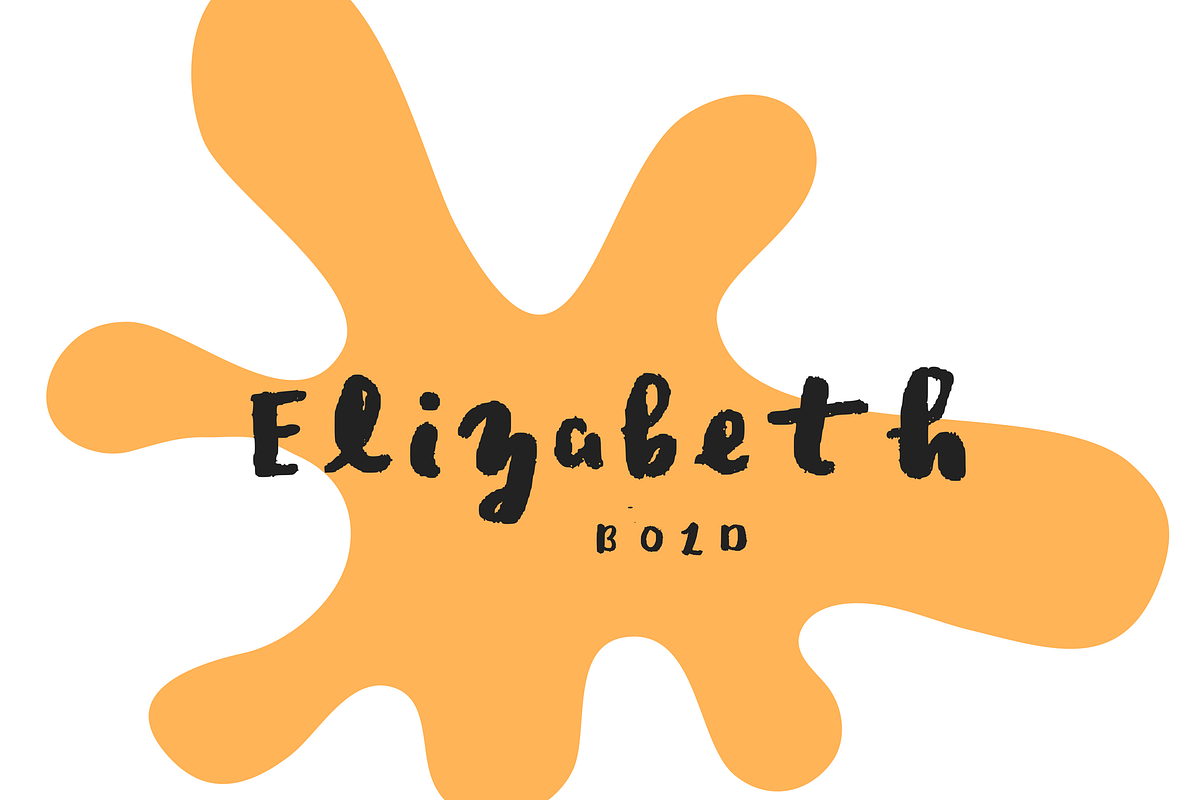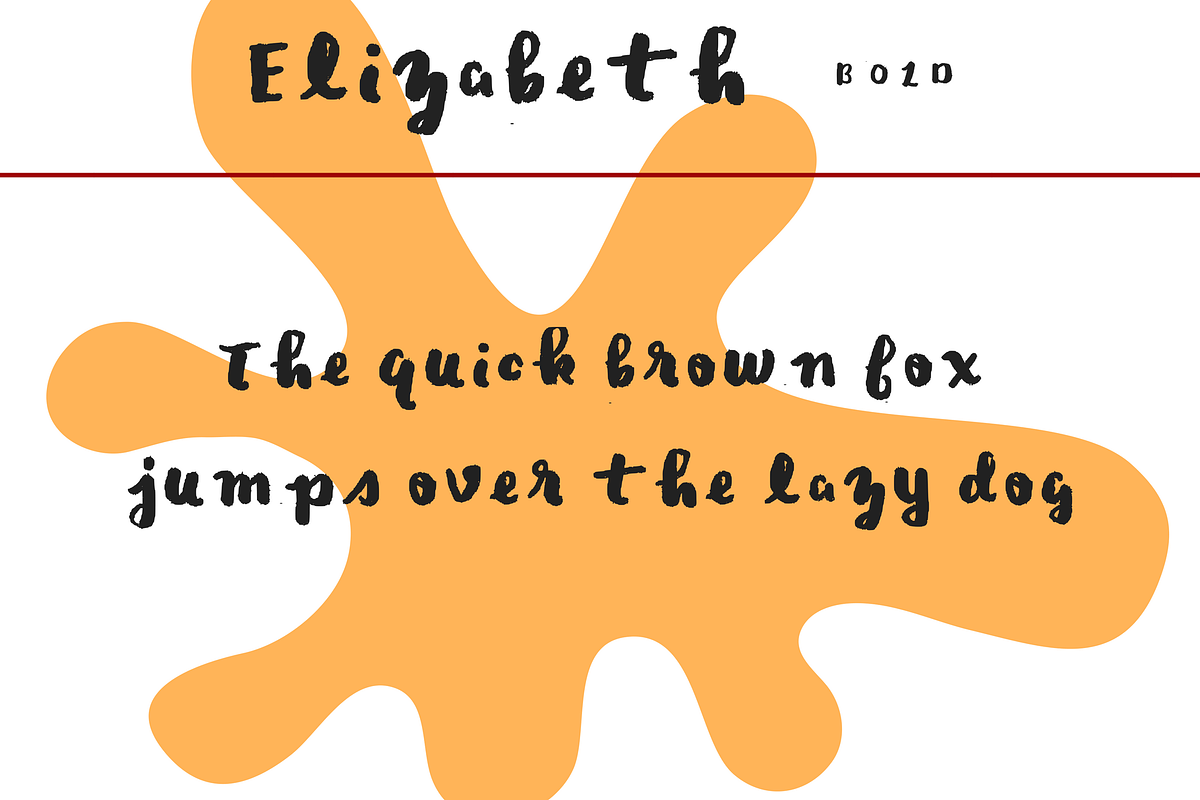
Elizabeth Bold Font
This font is a fun bold mix between a printed font and a cursive font perfect for promoting, marketing, and advertizement.
Why Elizabeth Bold Font is worth a look
Elizabeth Bold Font by ElizabethJournals fits naturally into Branding, posters, packaging, typography.